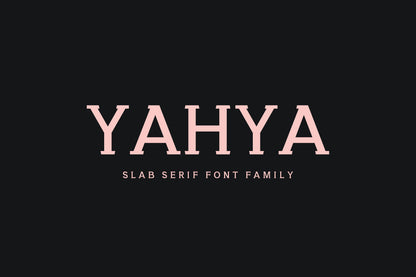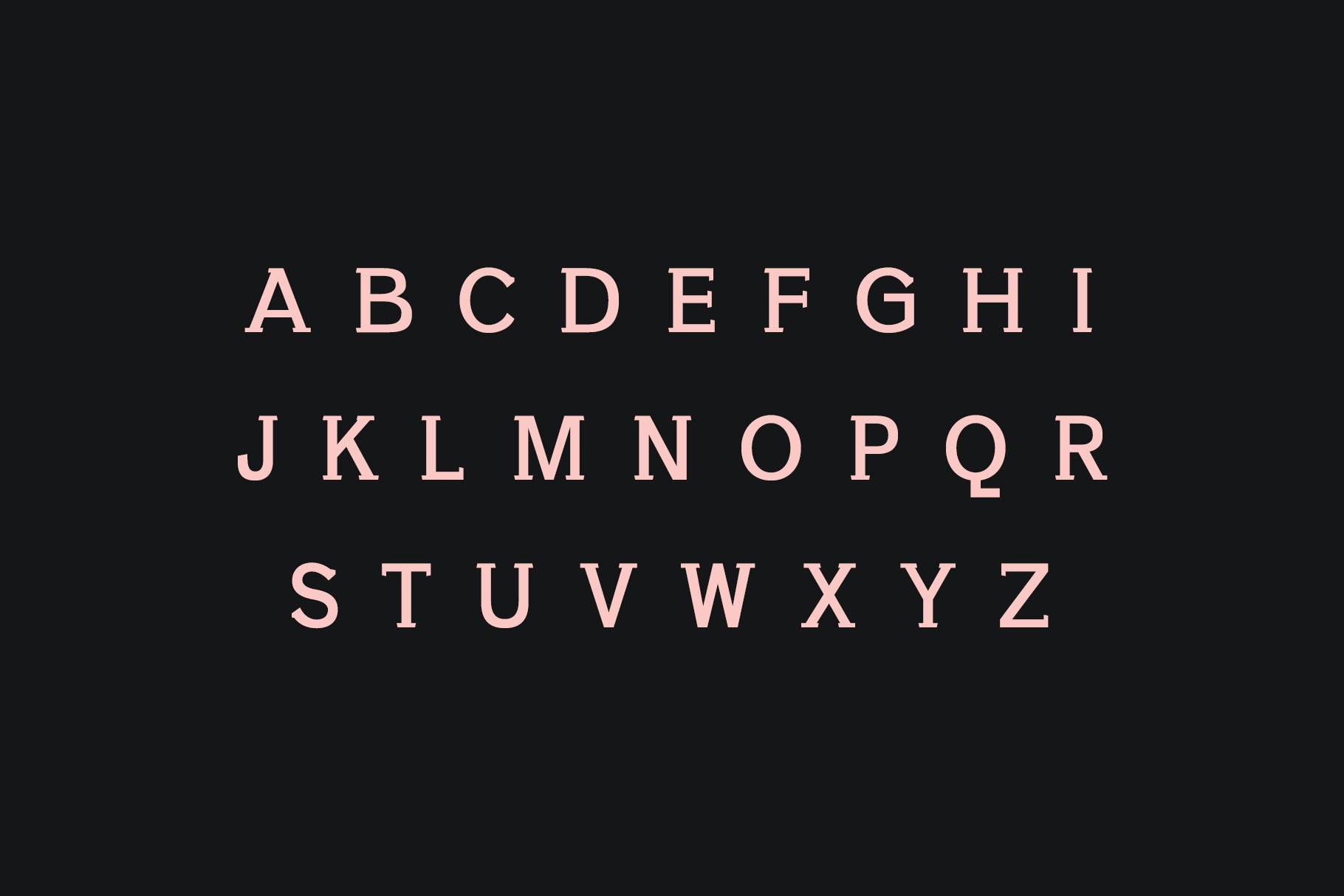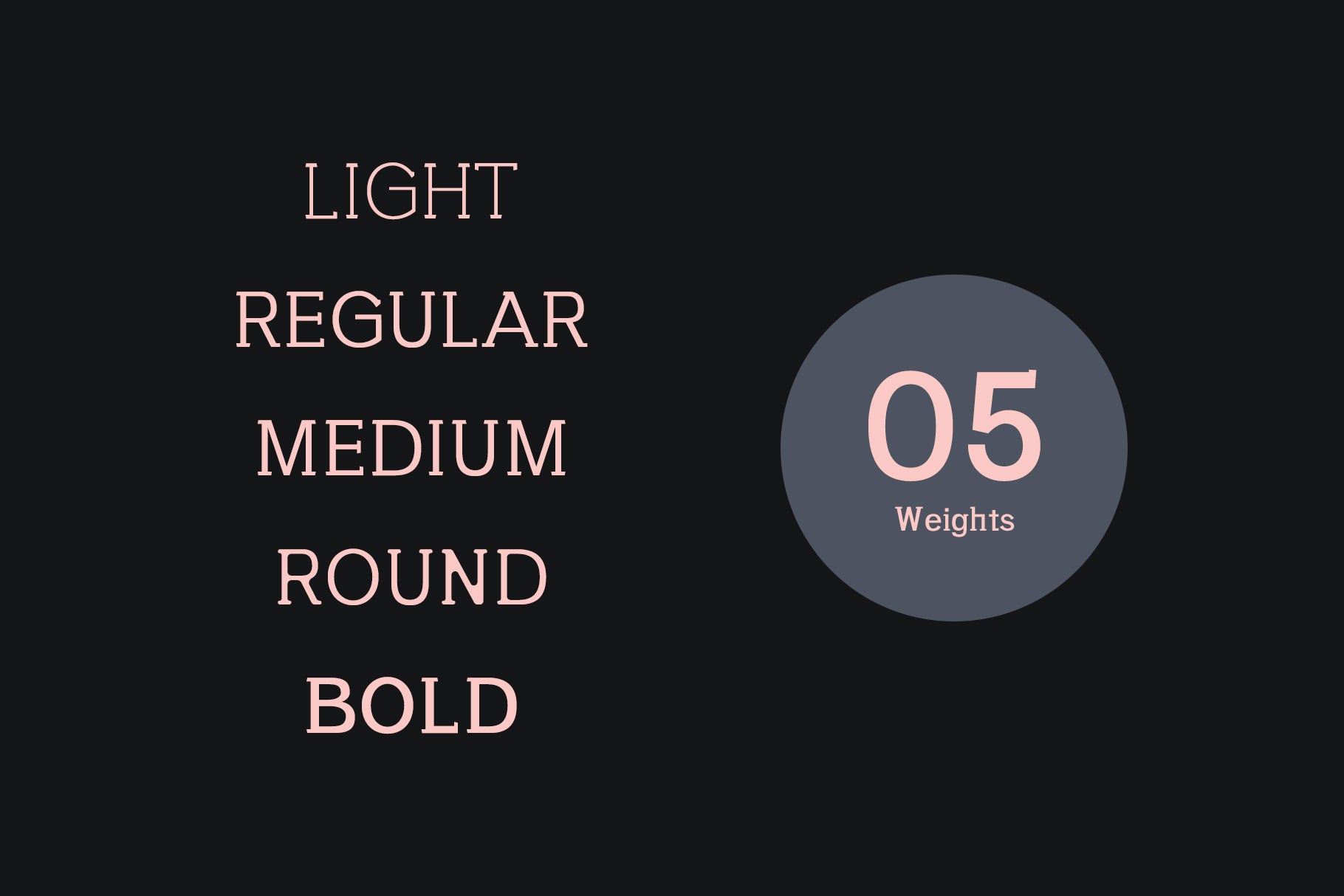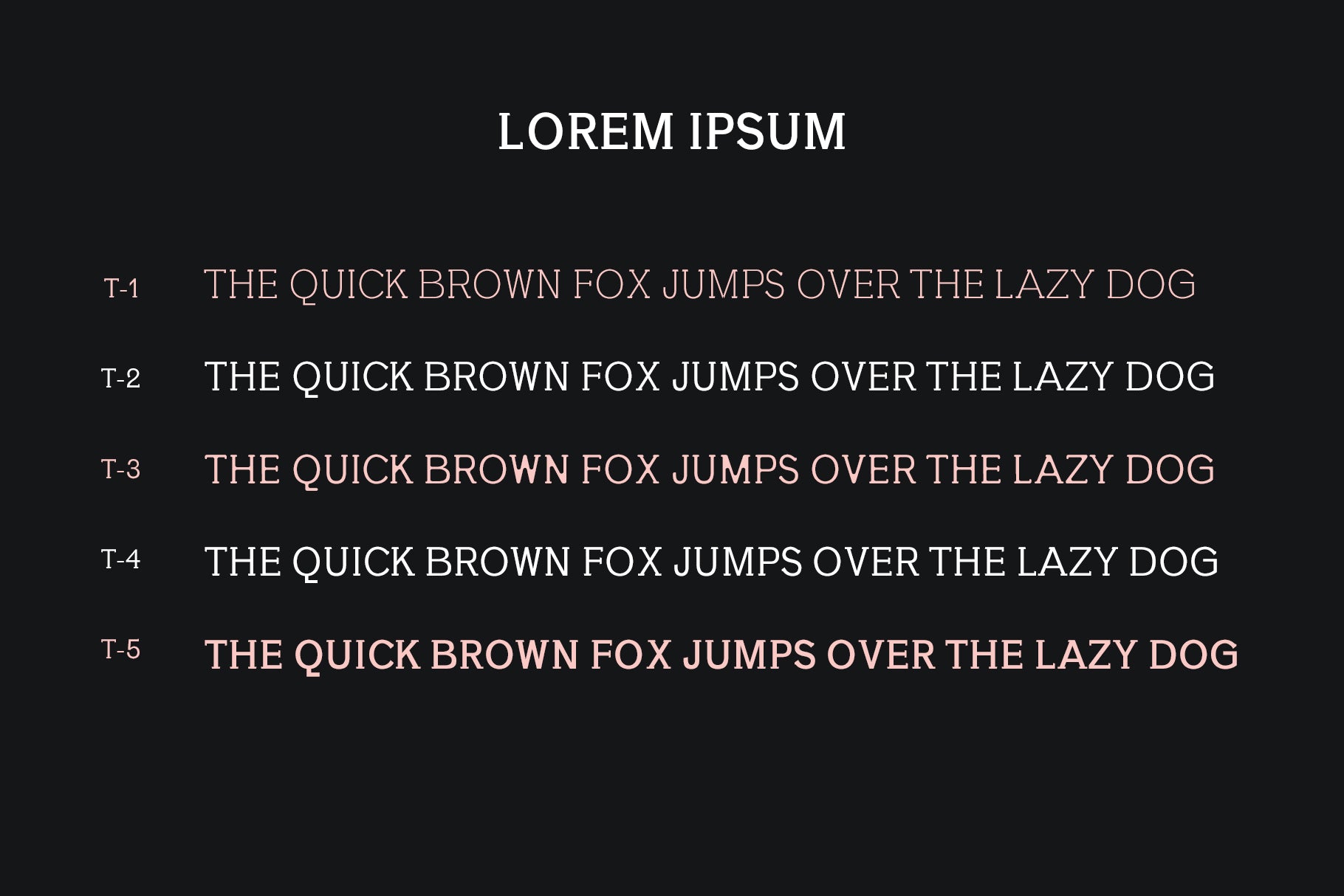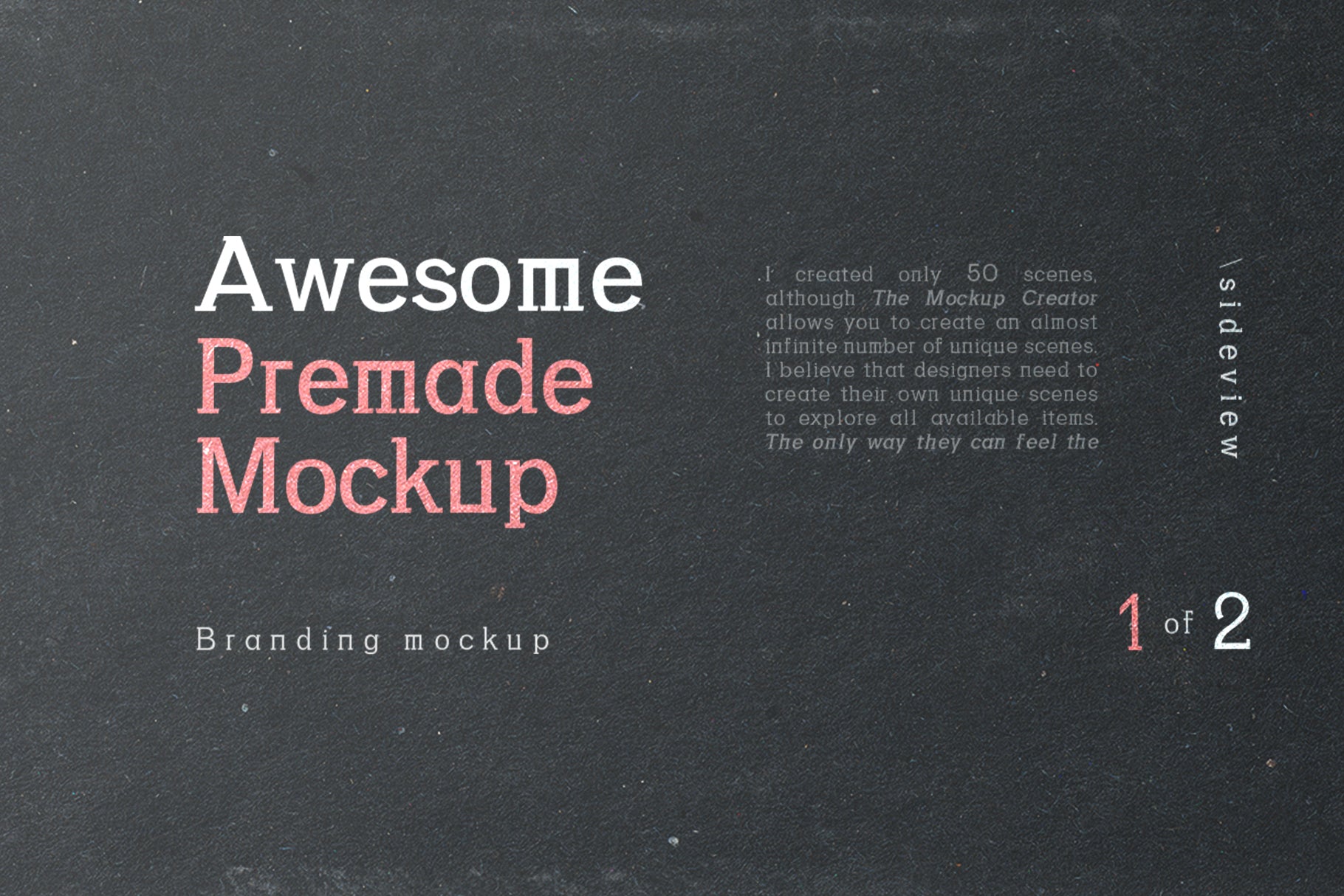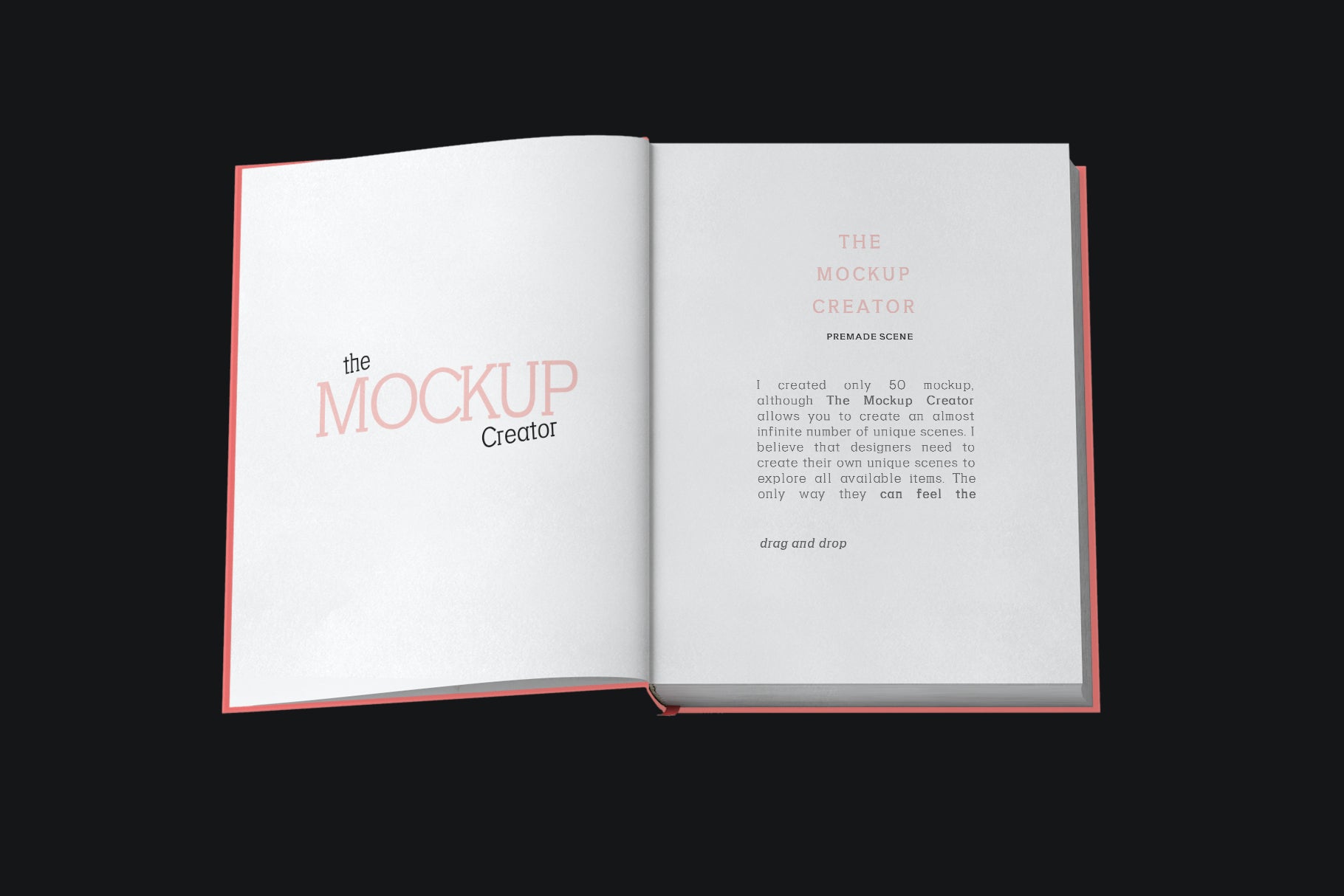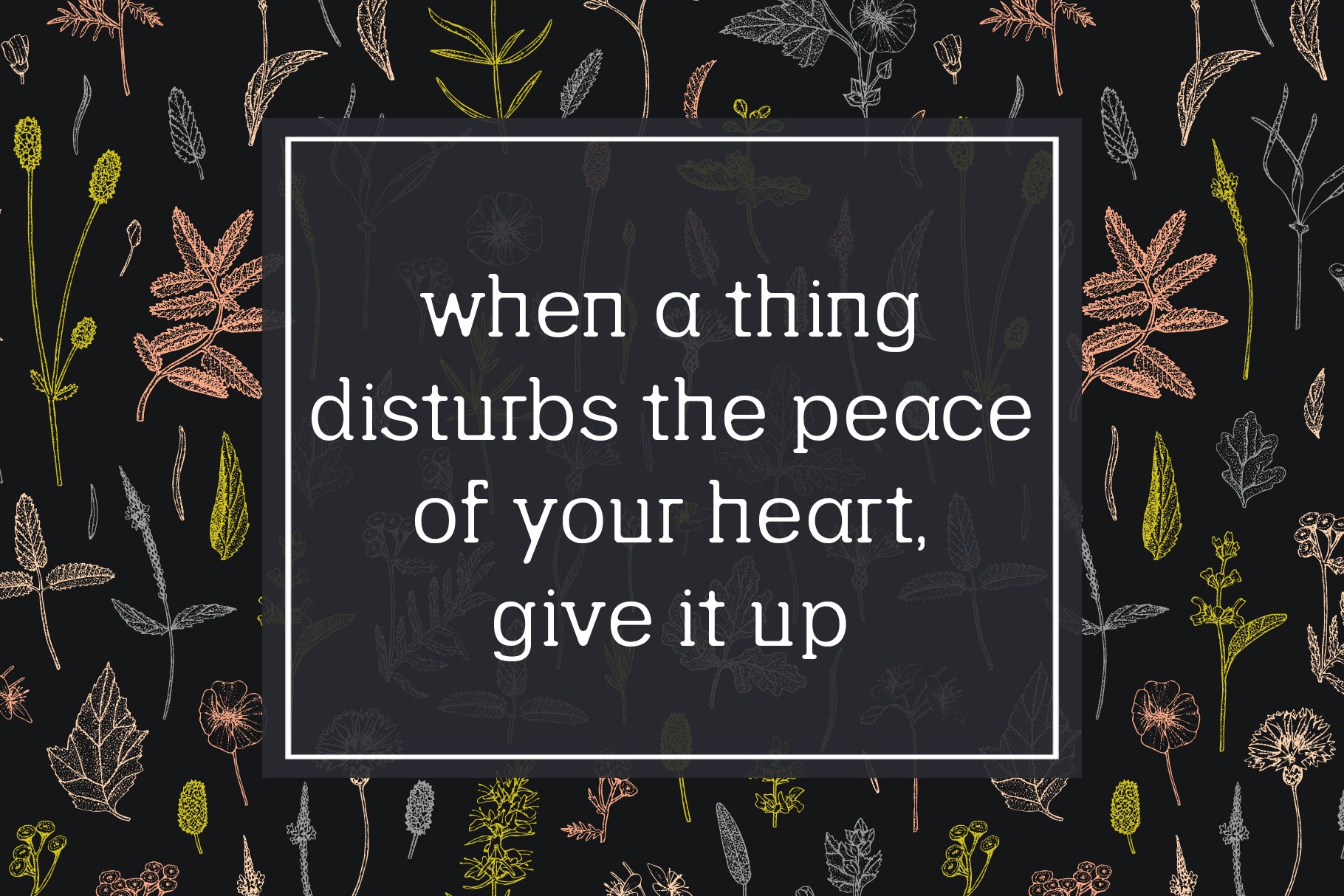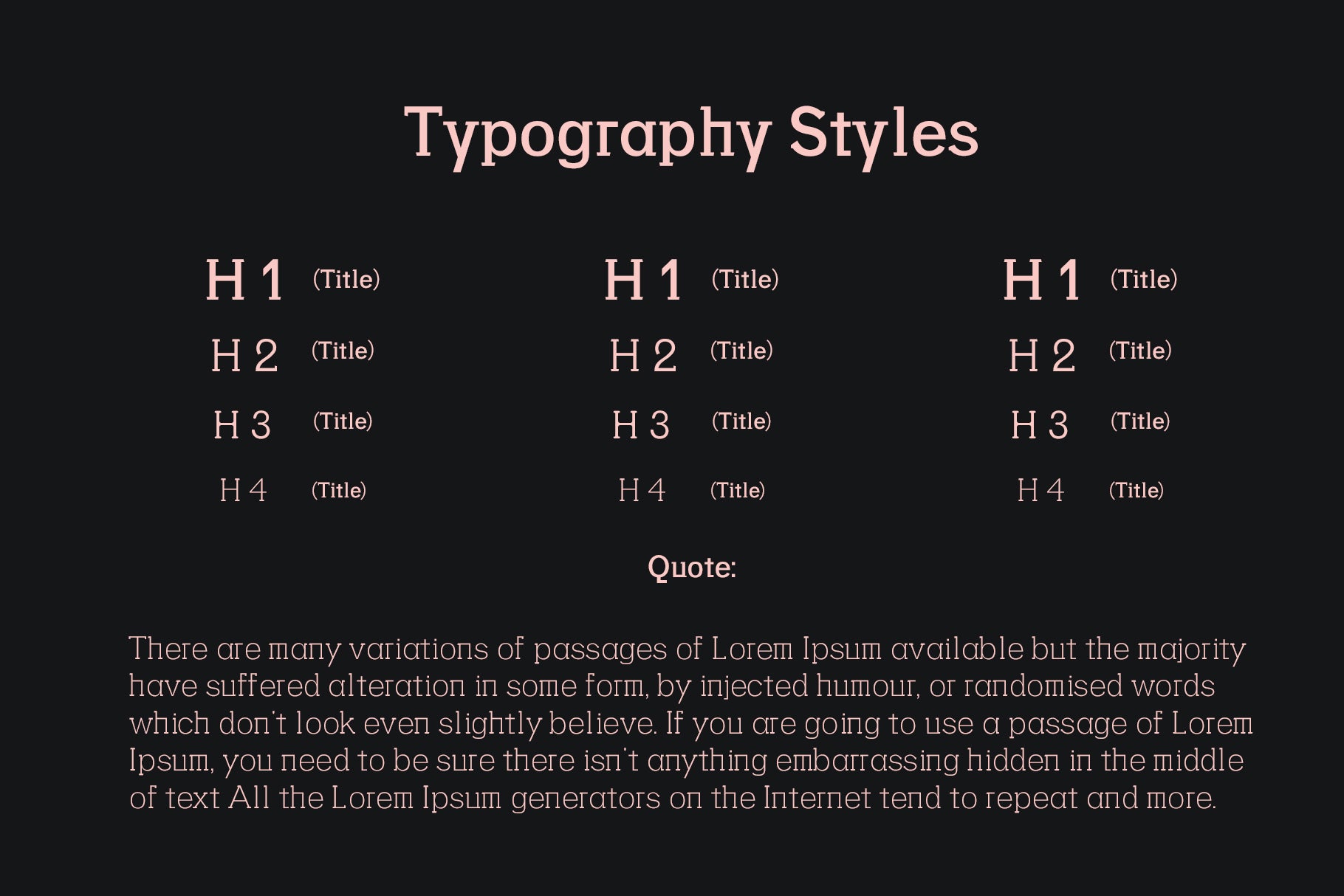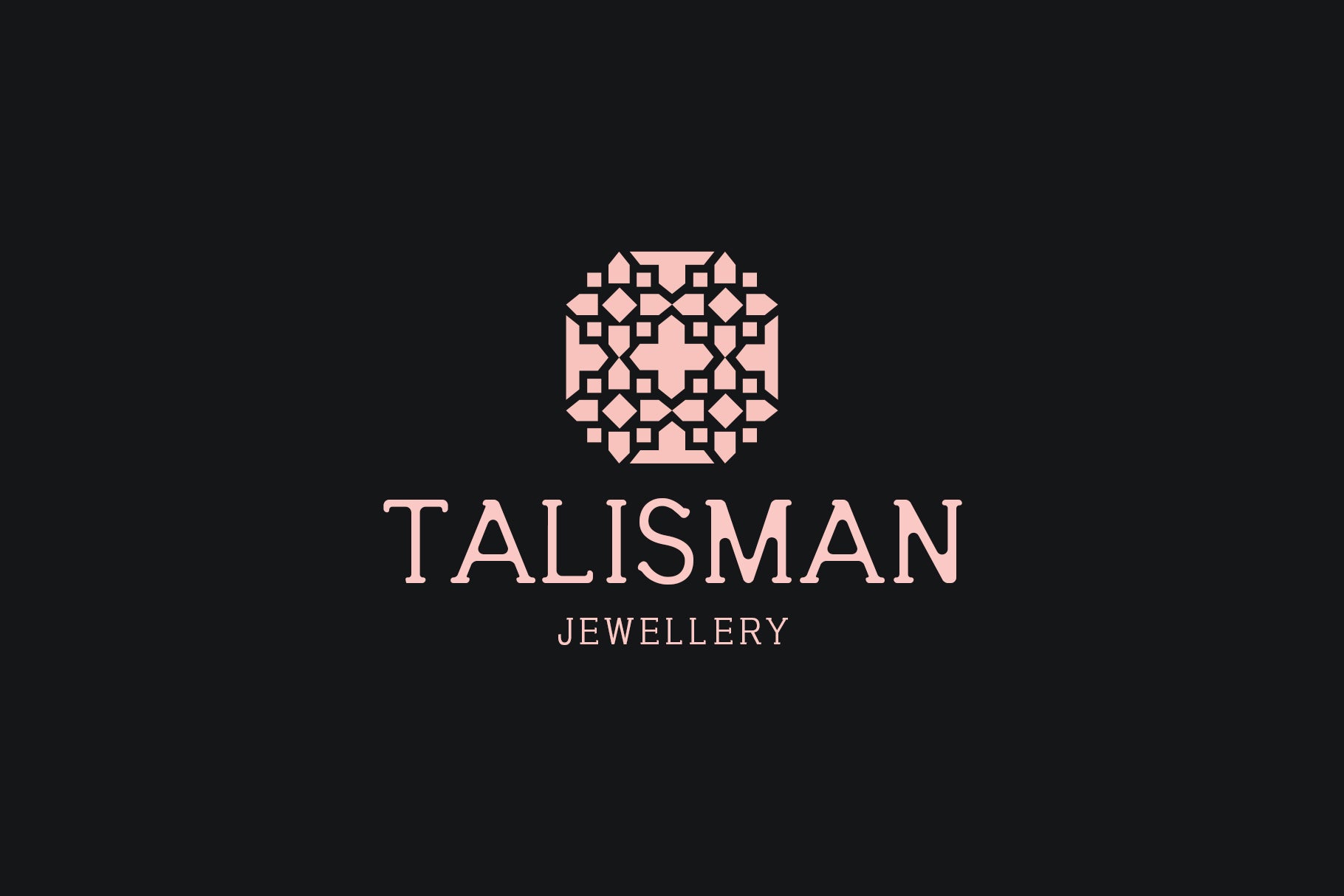
Yahya is a minimalist and stylish round slab font family that will make your design fresh and innovative. It includes uppercase, lowercase, number, punctuation, symbols, with non-english characters.
Font Weight: Regular, Light, Medium, Round and Bold
Uppercase Multilingual Letters
Lowercase Multilingual Letters
Numbers and Punctuation
Non English Characters (Latin Supplement + Latin Extended A)